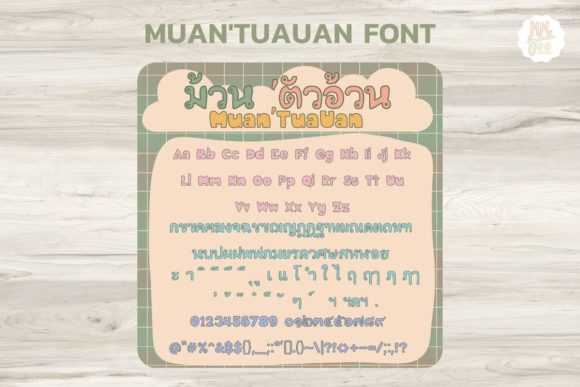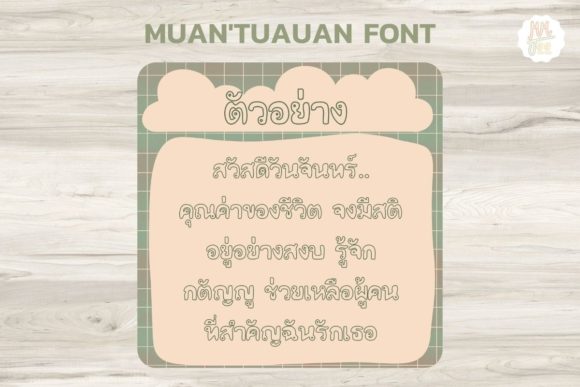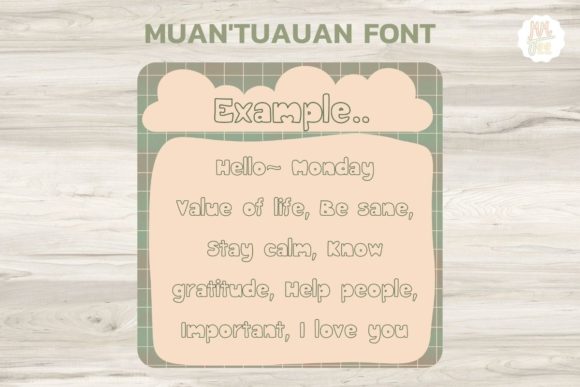
Muan Tua-Uan Font
About Muan Tua-Uan Font
Muna Tua-Uan is a beautiful script font inspired by the Thai word for round shape. Interesting and cute, add it to any of your creative projects, and notice how it makes them stand out!